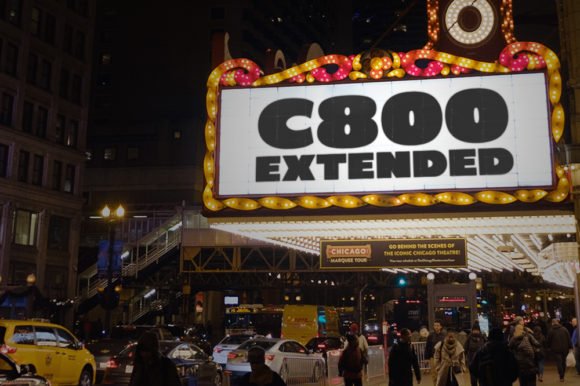
The Perfect Font for the Perfect Design
There’s nothing quite like the thrill of finding the perfect font for a design project. The moment when all the pieces fall into place, and the text just seems to pop. It’s a feeling that’s hard to describe, but it’s one that every designer knows all too well. And for designers who are looking for that elusive font that will elevate their work to the next level, we’re excited to introduce the C800 Extended Font.
This bold sans serif font has been carefully handcrafted to provide a casual charm that’s both down-to-earth and incredibly versatile. Whether you’re working with busy backgrounds or standalone headlines, the C800 Extended Font is sure to look outstanding. And for designers, that’s invaluable – it’s a font that can be relied upon to deliver results time and time again.
C800 Extended Font Key Features
- Character Set: Extends the standard C800 character set with additional glyphs for languages such as Greek, Cyrillic, and Vietnamese.
- Unique Character Set: Features a unique set of characters, including symbols, ligatures, and special characters, making it ideal for creative and technical applications.
C800 Extended Font Review
Overall, I found the C800 Extended Font to be a decent choice for projects where a modern sans-serif font is required. ✨ One of its strongest points is its wide range of language support, making it suitable for international projects. Additionally, it’s available in various weights and styles, which can be quite versatile in the right context.
- ✨ Wide language support, including many non-Latin scripts.
- ✨ Available in multiple weights and styles.
- ✨ Well-suited for modern, clean designs.
However, I did encounter a few limitations that might impact its suitability for certain projects. ⚠️ For instance, the font’s legibility at smaller font sizes can be a concern, particularly in print materials. Furthermore, some users might find the font’s aesthetic to be too minimalist or generic.
- ⚠️ Legibility issues at smaller font sizes.
- ⚠️ May be perceived as too minimalist or generic by some users.
Overall, I’d say the C800 Extended Font is a solid choice for projects that require a clean, modern look and a wide range of language support. While it may not excel in every area, its strengths make it a good option for designers who need a reliable font that can handle a variety of tasks.
Tips for Getting the Most Out of C800 Extended Font
For best results, use C800 Extended Font in bold or italic styles to add emphasis.
Pair C800 Extended Font with other fonts to create a unique and eye-catching design.
C800 Extended Font is ideal for:
Creating bold, eye-catching headlines.
Designing retro-themed graphics and posters.
Adding a touch of vintage flair to your designs.
Alternatives to C800 Extended Font for Designers
1. Arial Rounded MT
Arial Rounded MT is a sans-serif font with rounded edges, making it ideal for use in digital displays, signage, and other applications where readability is crucial. It’s a good alternative to C800 Extended Font for body text, headings, and titles. While it lacks the bold and condensed styles of C800 Extended Font, Arial Rounded MT offers a more modern and clean look.
2. Courier New
Courier New is a monospaced font designed for readability in fixed-width environments, such as coding, typing, and other applications requiring precise alignment. It’s a better choice than C800 Extended Font for technical documents, coding, and other situations where font consistency is essential. However, Courier New lacks the condensed and extended styles of C800 Extended Font.